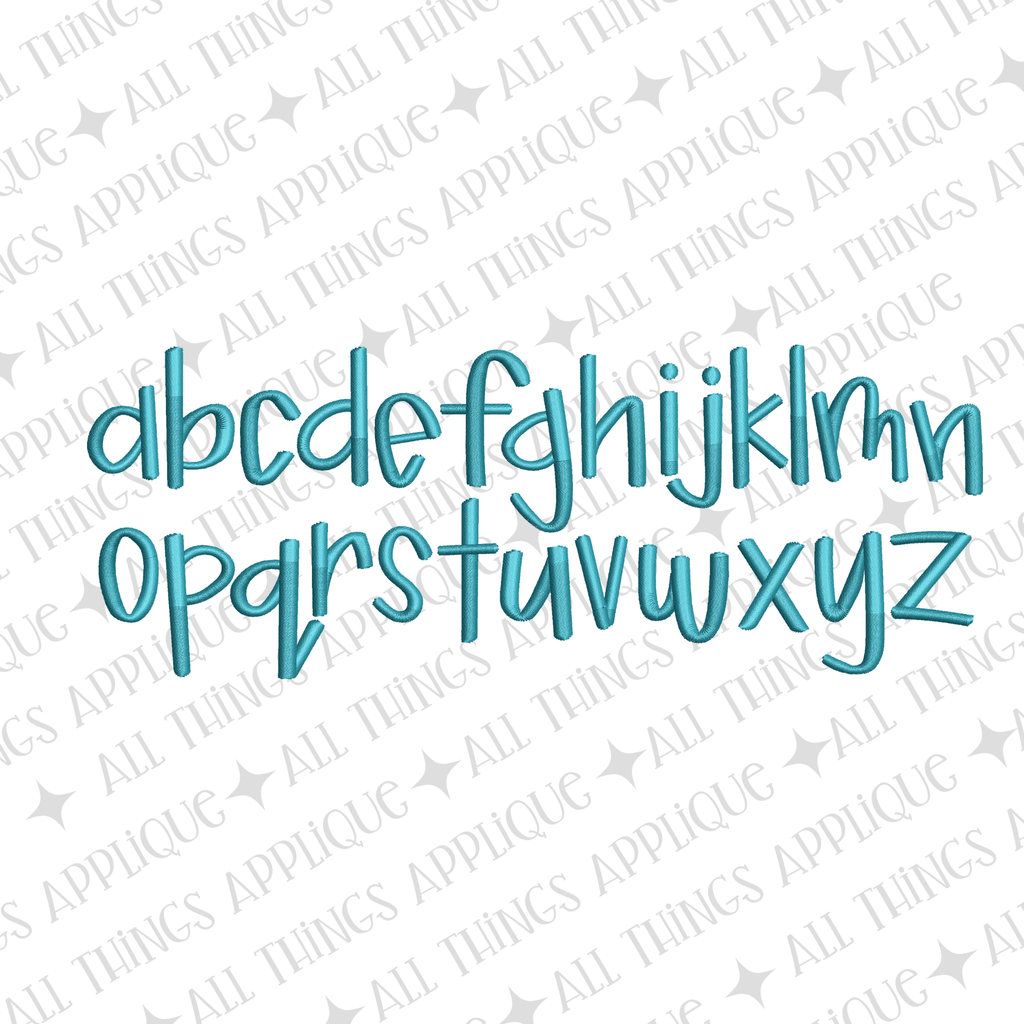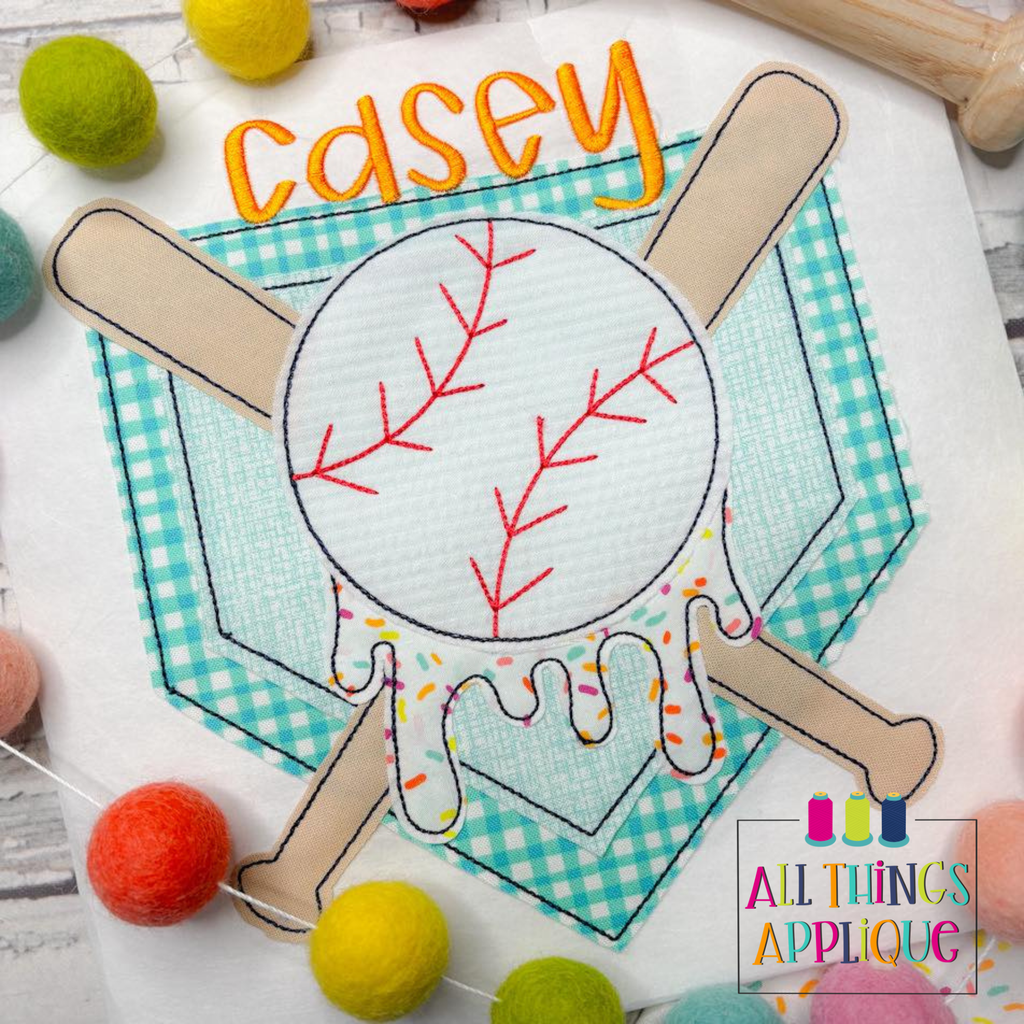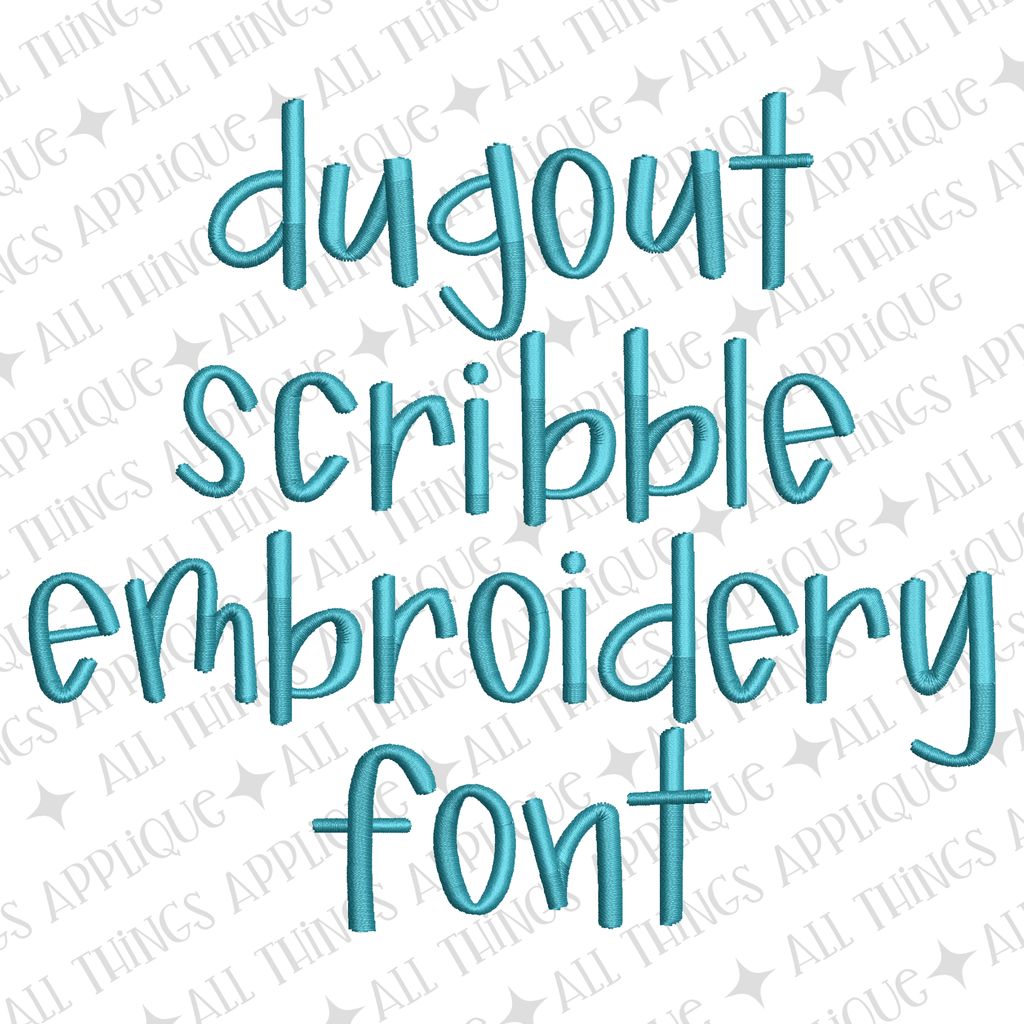
- Dugout Scribble Embroidery Font
About the Dugout Scribble Embroidery Font
Add a playful, hand-drawn touch to your projects with Dugout Scribble, a lowercase-only embroidery font full of casual charm. Designed to mimic relaxed, scribbled lettering, this font brings a fun and sporty feel to everything from game day gear to everyday creations.